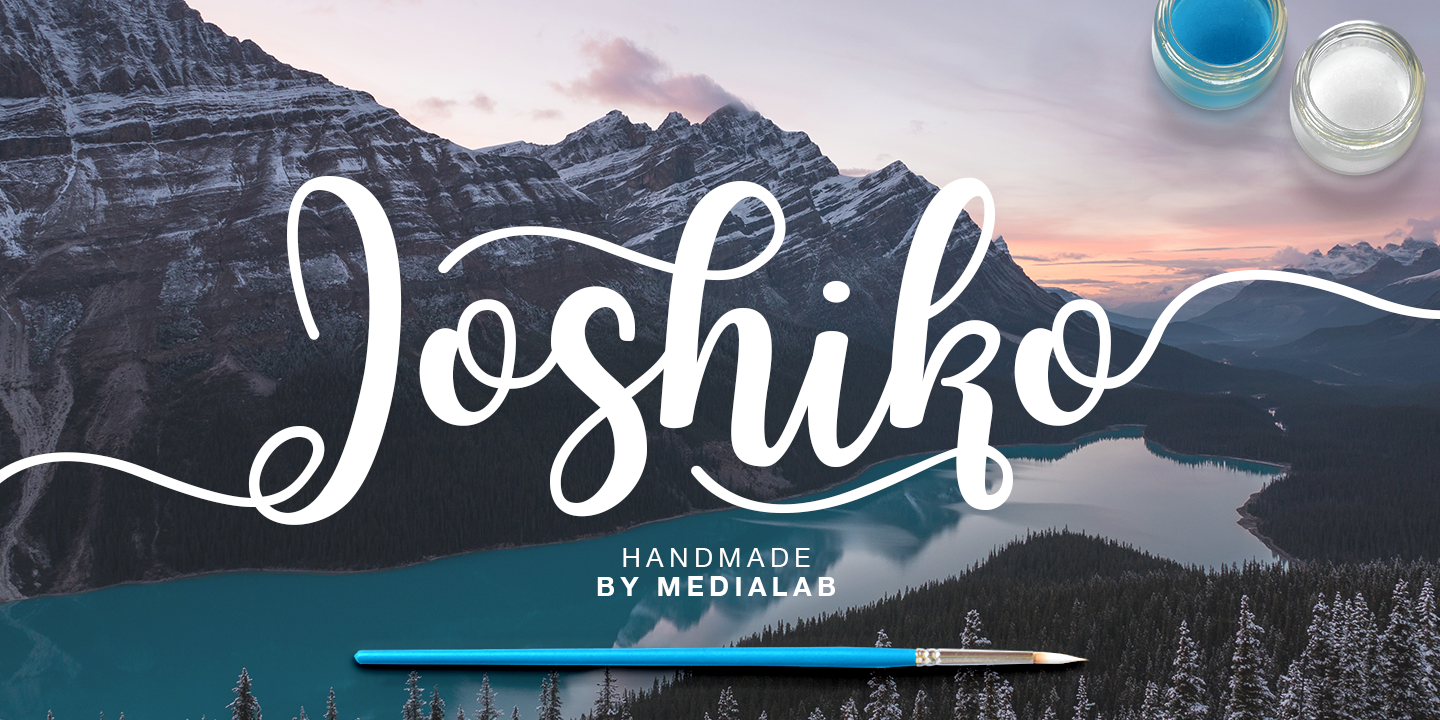
Joshico Font is perfect for personal branding projects, creative portfolio websites, artistic signature designs, boutique fashion labels, independent studio logos, freelance designer identity, contemporary art exhibitions, and personalized social media graphics. This uniquely expressive typeface excels in projects requiring individual character and creative authenticity where personal style meets professional artistic communication.
What makes Joshico Font exciting is its distinctive fusion of contemporary design sensibilities with personal artistic expression through uniquely crafted letterforms that feel both modern and individually meaningful. The font features creative characters with artistic proportions and expressive details that convey originality, creativity, and the authentic voice of independent artistic vision. Its creative character makes it perfect for artists, designers, and creative professionals seeking to establish distinctive personal brands that stand out in today's crowded creative marketplace.
Joshico Font family includes multiple weights and artistic variations that enhance its creative appeal while providing design flexibility for diverse artistic and personal branding applications. The family typically offers light, regular, medium, semibold, and bold weights, along with expressive alternates, artistic symbols, and creative ornaments that complement personal and artistic design themes perfectly.
Whether you're developing creative professional identity, designing artistic portfolio materials, or creating independent brand marketing, Joshico Font Free Download provides the perfect expressive solution for projects requiring individual artistic character and creative authenticity. This font's unique appeal and artistic personality make it essential for creative professionals who value originality and authentic self-expression in their work.
The creatively crafted letterforms and artistic proportions of Joshico Font create immediate connections to contemporary creative culture while maintaining excellent readability across all artistic applications. Its distinctive personal personality and creative symbolism make it an invaluable tool for designers, artists, and creative entrepreneurs working on personal branding and artistic expression projects. Download Joshico Font today and express your unique creative voice with this artistically distinctive typeface that perfectly captures the essence of contemporary artistic individuality and creative professional authenticity.